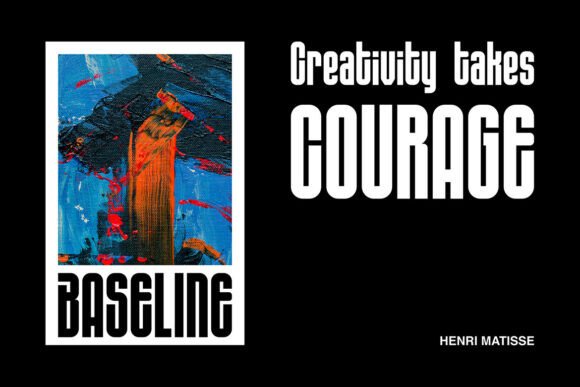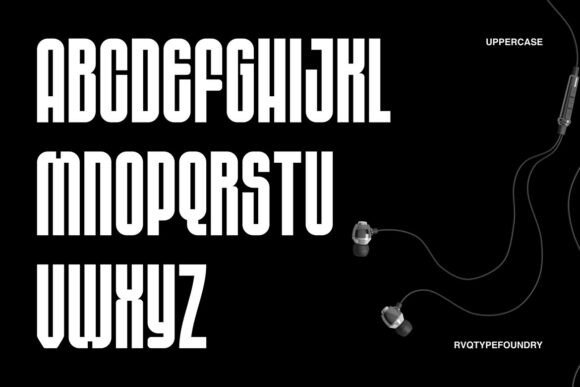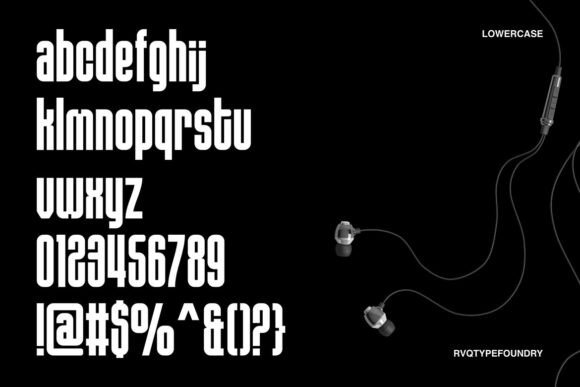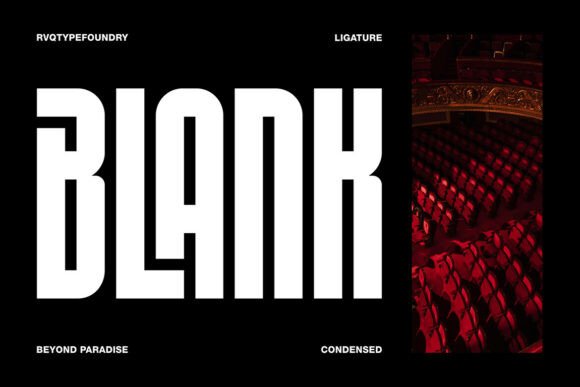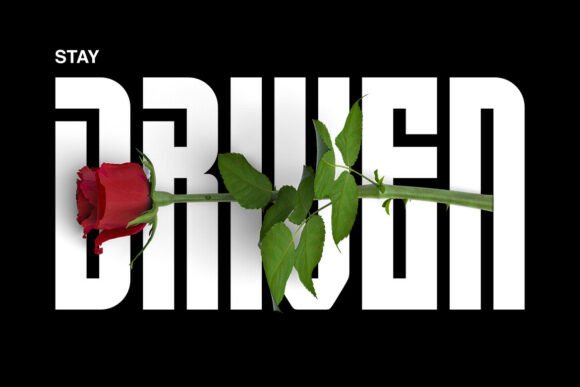
Beyond Paradise Font: Elevate Your Designs with a Bold and Modern Typeface
In the world of design, fonts play a crucial role in conveying messages, evoking emotions, and creating lasting impressions. For designers and crafters seeking a typeface that embodies modern minimalism with a powerful urban edge, Beyond Paradise font is an exceptional choice. This condensed display font, crafted by Rvqtypefoundry, is engineered to deliver a bold, striking presence, making it perfect for headlines, branding, posters, and streetwear designs.
Beyond Paradise font boasts tall, tightly spaced letterforms that command attention and make a strong visual impact. Its clean lines and compact structure are designed to maximize space without sacrificing readability. This harmonious blend of form and function allows designers to create visually stunning pieces that exude confidence and style.
The font’s modern aesthetic is characterized by:
- Condensed letterforms: Allowing for maximum space efficiency while maintaining readability.
- Tall and tightly spaced: Creating a bold, striking presence that grabs attention.
- Clean lines: Providing a crisp, contemporary look that works well in various design applications.
- Multilingual support: With accents and stylistic alternates, designers can experiment with different languages and styles.
Beyond Paradise font comes with a range of features that make it an excellent addition to any designer’s toolkit:
- Character Set: A-Z, ensuring comprehensive coverage for English and other languages that use the Latin alphabet.
- Numerals & Punctuations: OpenType standard features provide a wide range of numerical and punctuation options.
- Accents (Multilingual characters): Supporting various languages, designers can create diverse and inclusive designs.
- Stylistic Alternates: Allowing for creative experimentation and customization.
- Ligature: Enhancing the font’s aesthetic appeal and readability.
Why Choose Beyond Paradise Font?
For designers and crafters seeking a typeface that embodies modernity, confidence, and style, Beyond Paradise font is an excellent choice. Its unique blend of condensed letterforms, clean lines, and multilingual support makes it perfect for:
- Headlines: Grab attention with bold, striking letterforms.
- Branding: Create a lasting impression with a modern, confident aesthetic.
- Posters: Make a statement with a font that commands attention.
- Streetwear designs: Add an urban edge to your designs with Beyond Paradise font.
Beyond Paradise font is a versatile and powerful typeface that can elevate your designs to new heights. Its unique combination of modern minimalism and urban edge makes it perfect for designers and crafters seeking to create visually stunning pieces. With its comprehensive feature set, multilingual support, and clean lines, Beyond Paradise font is an excellent addition to any designer’s toolkit.